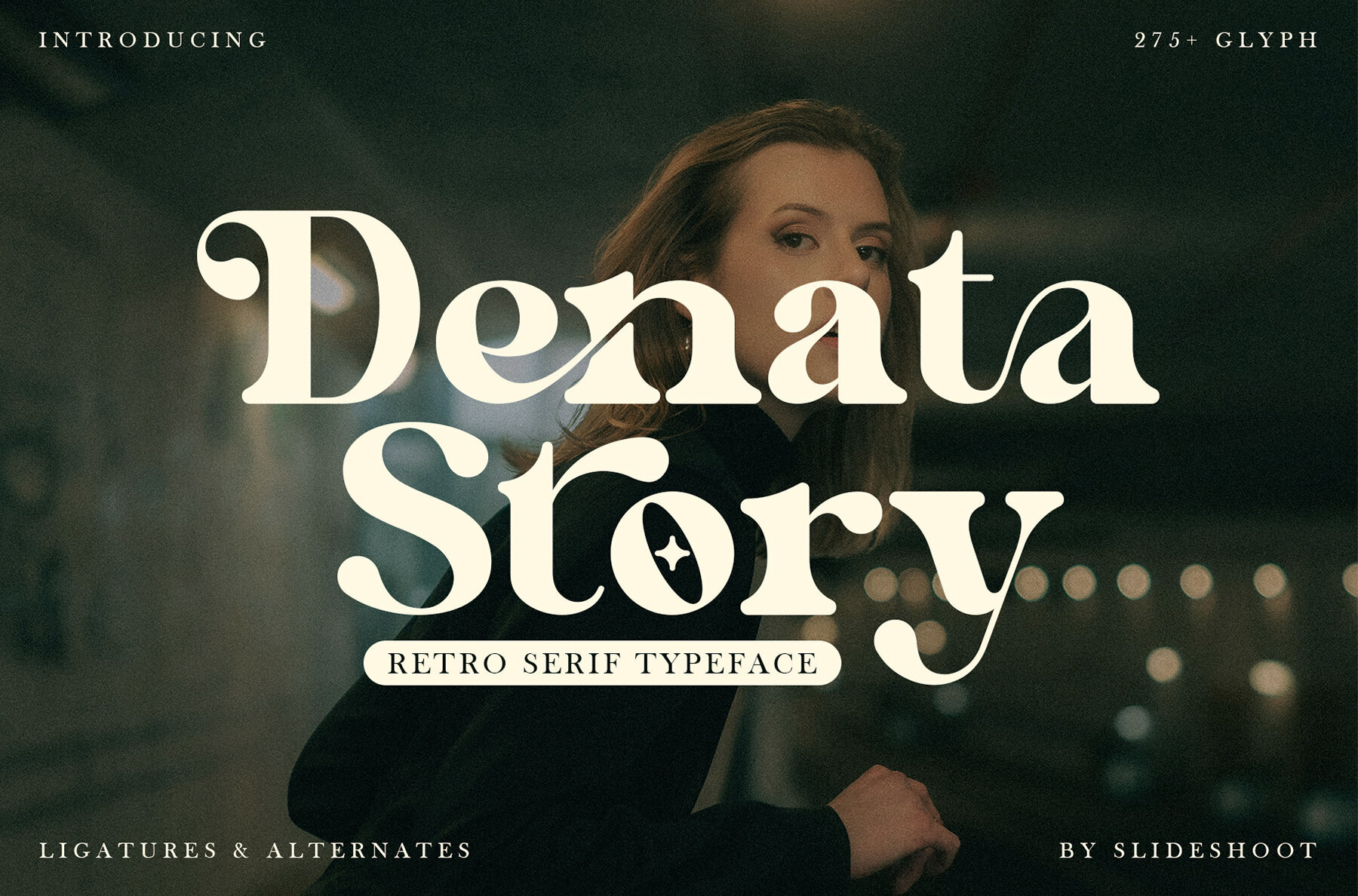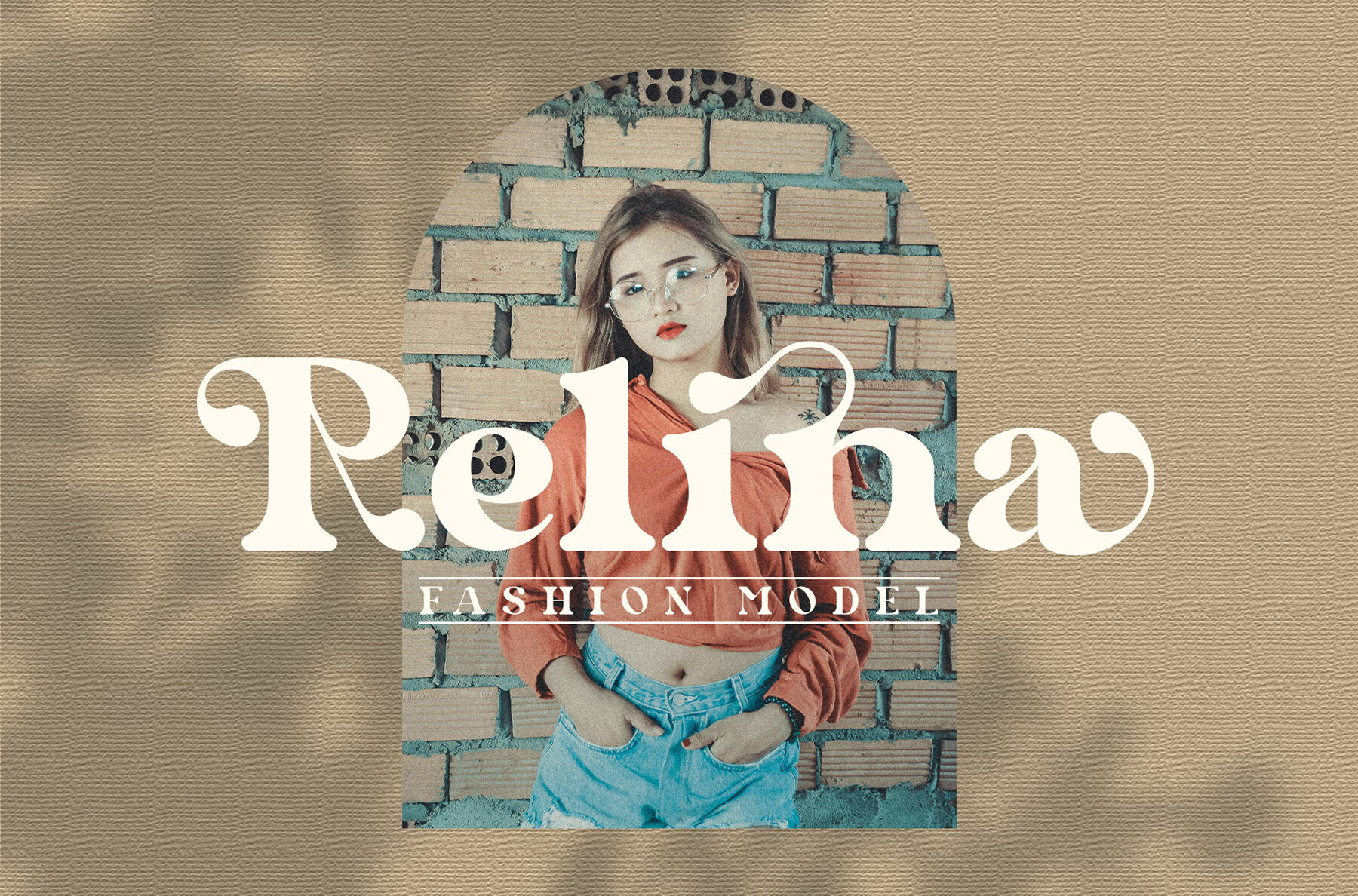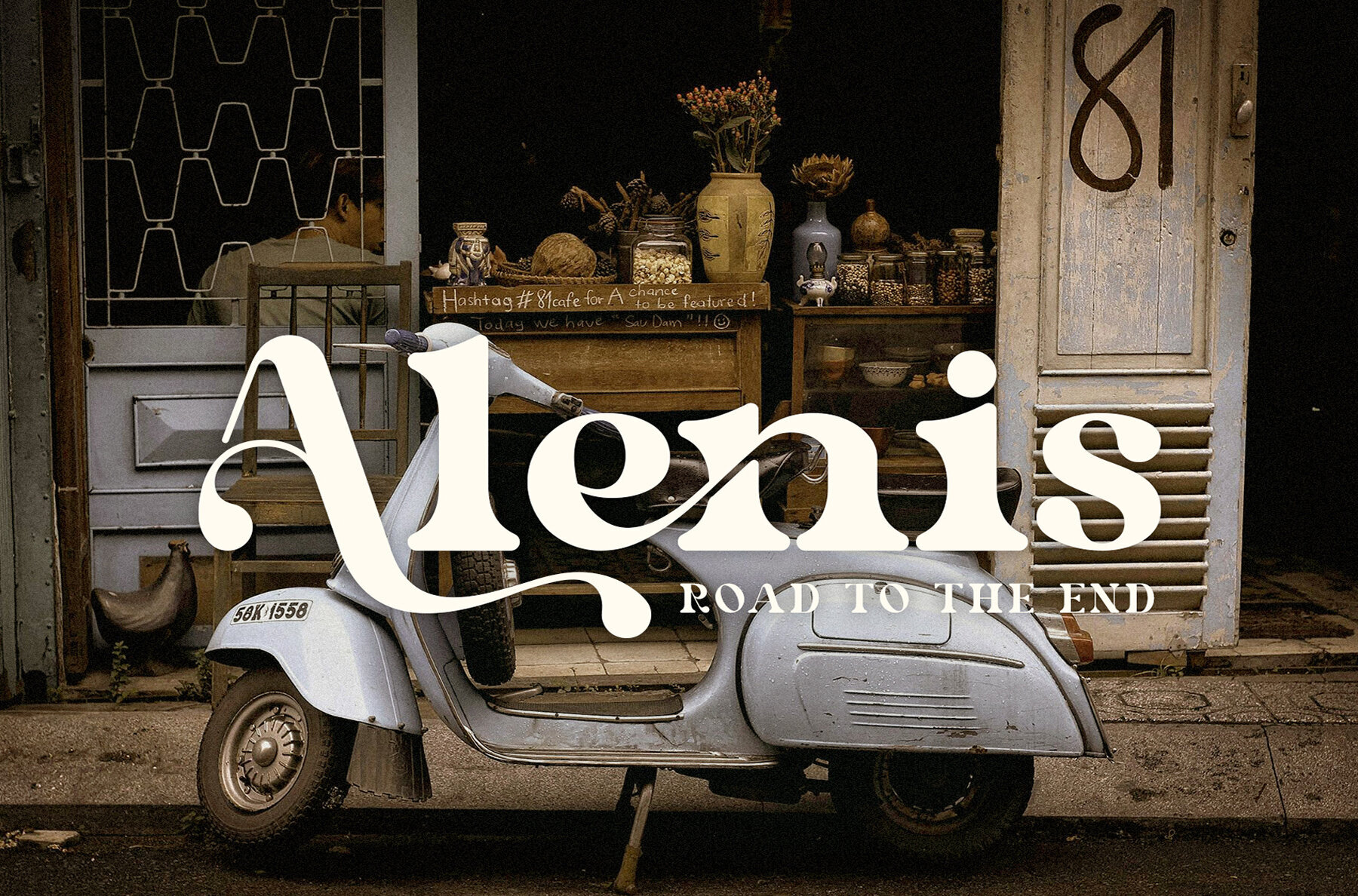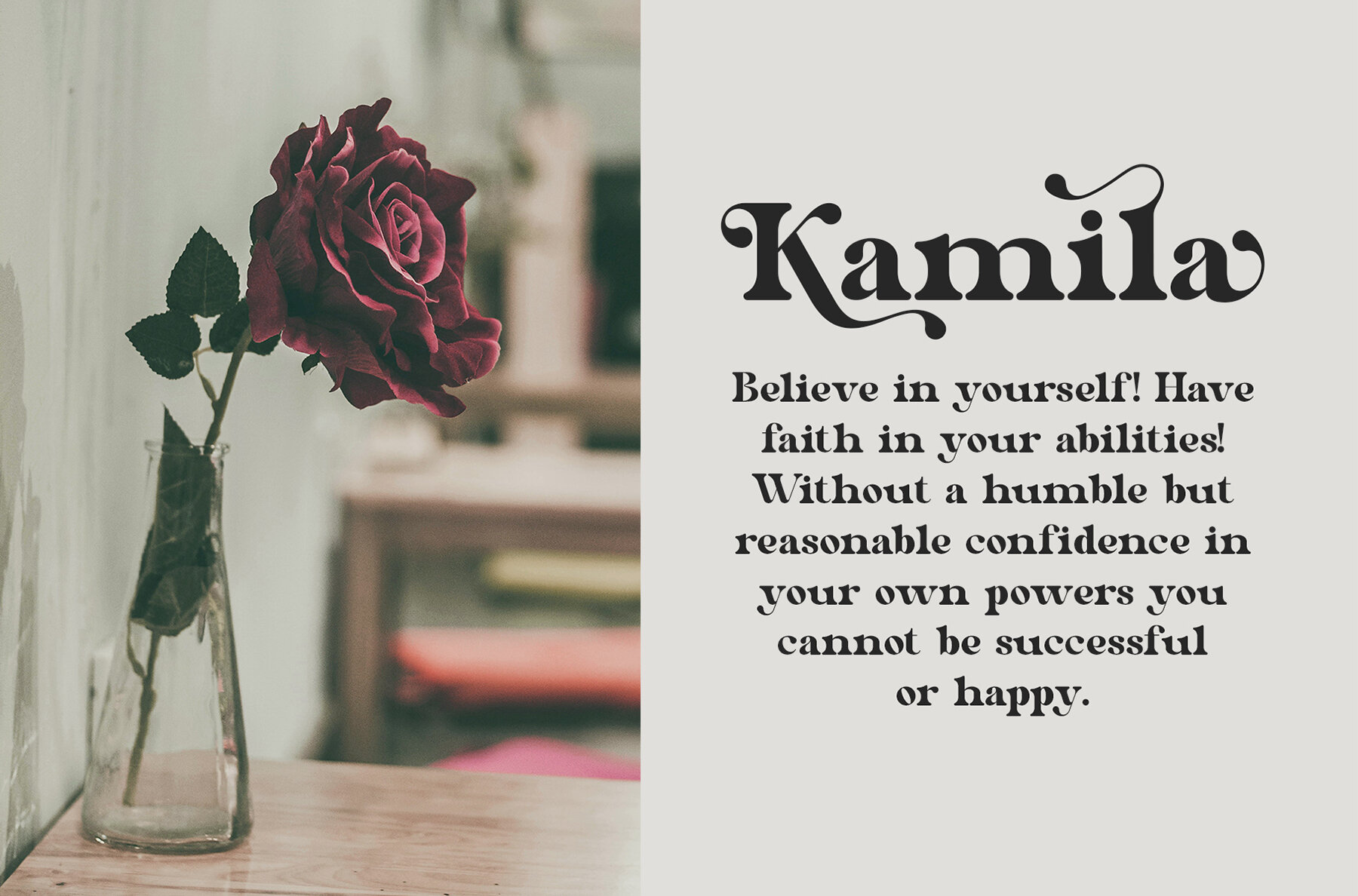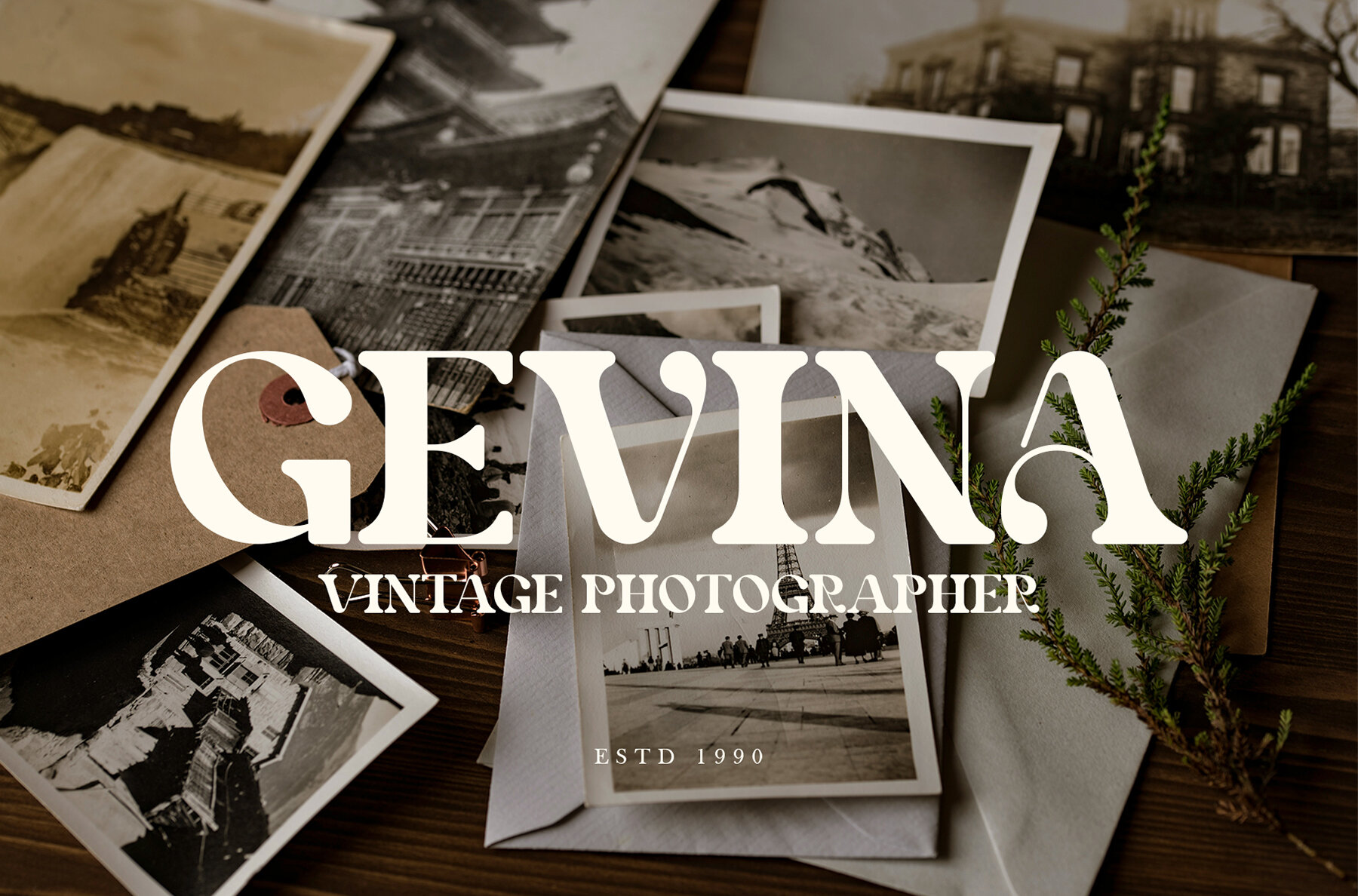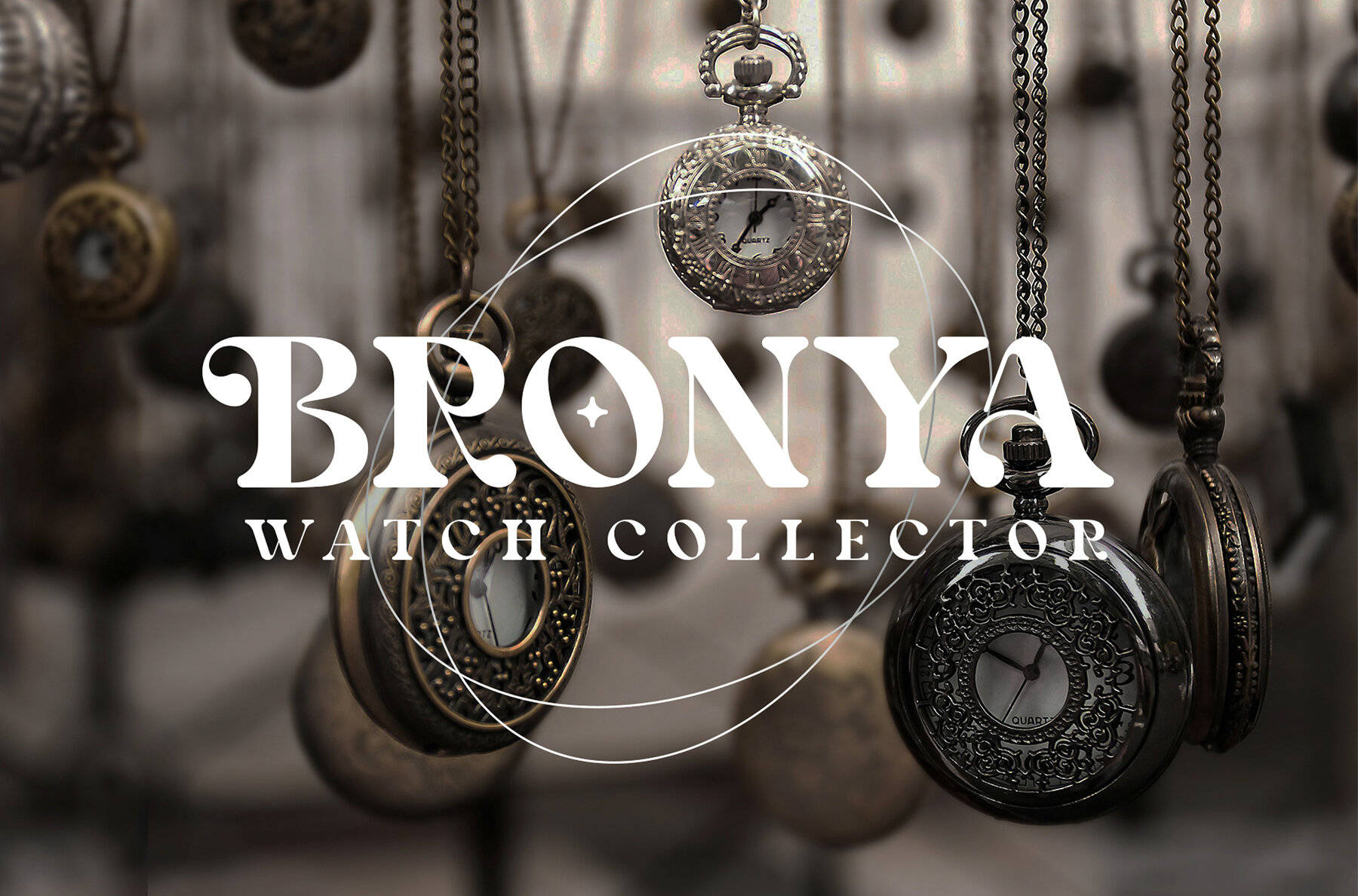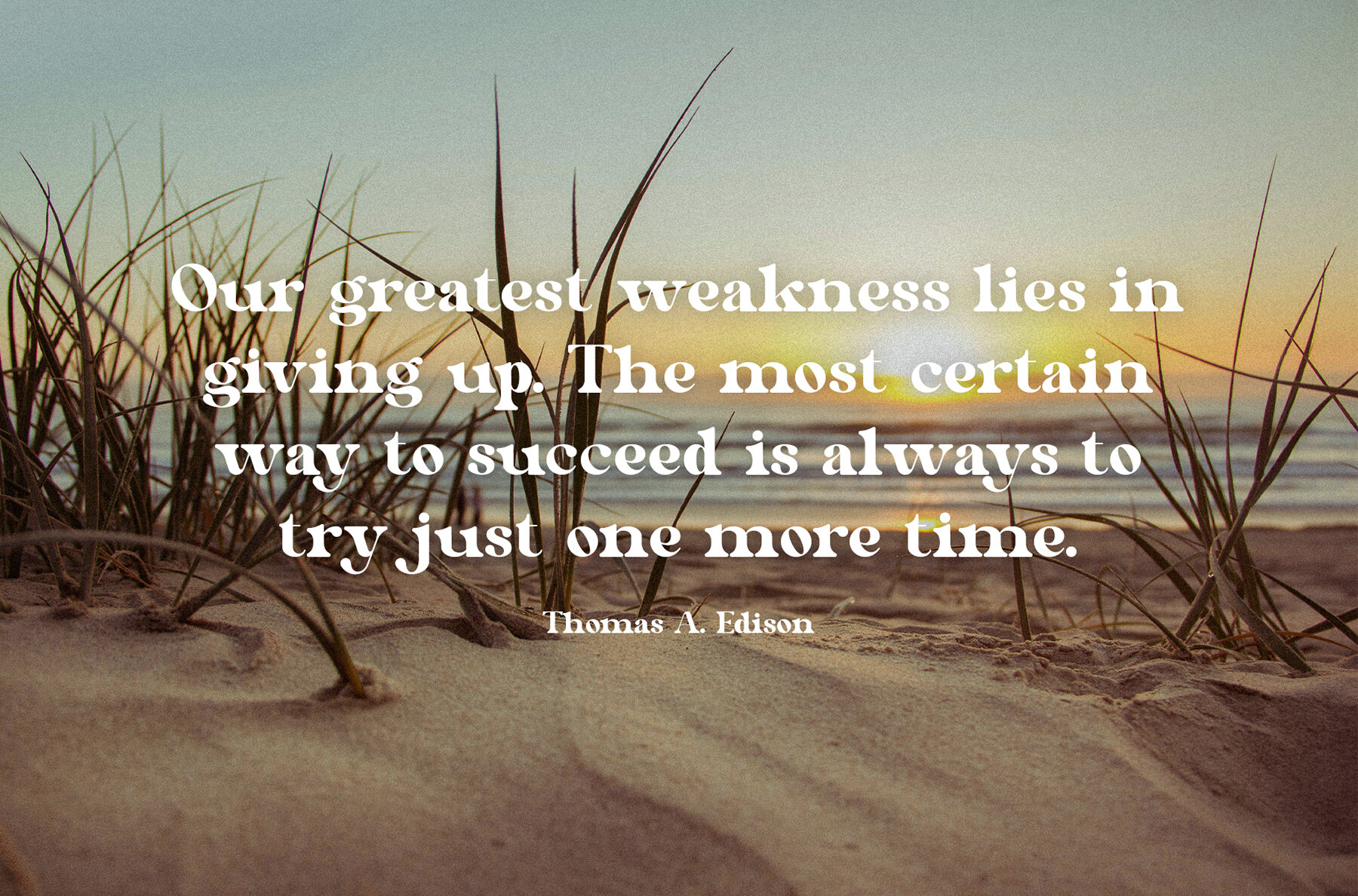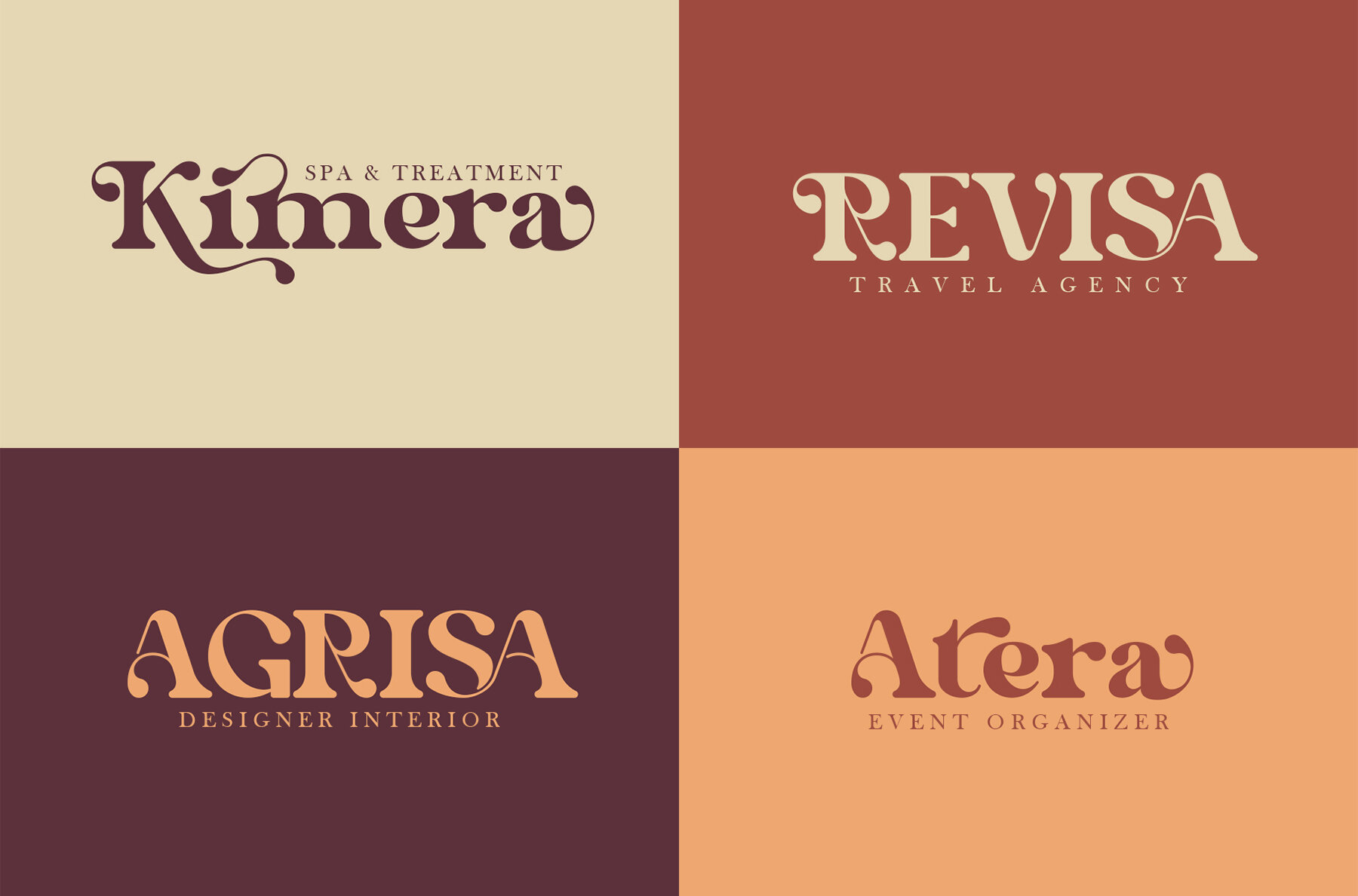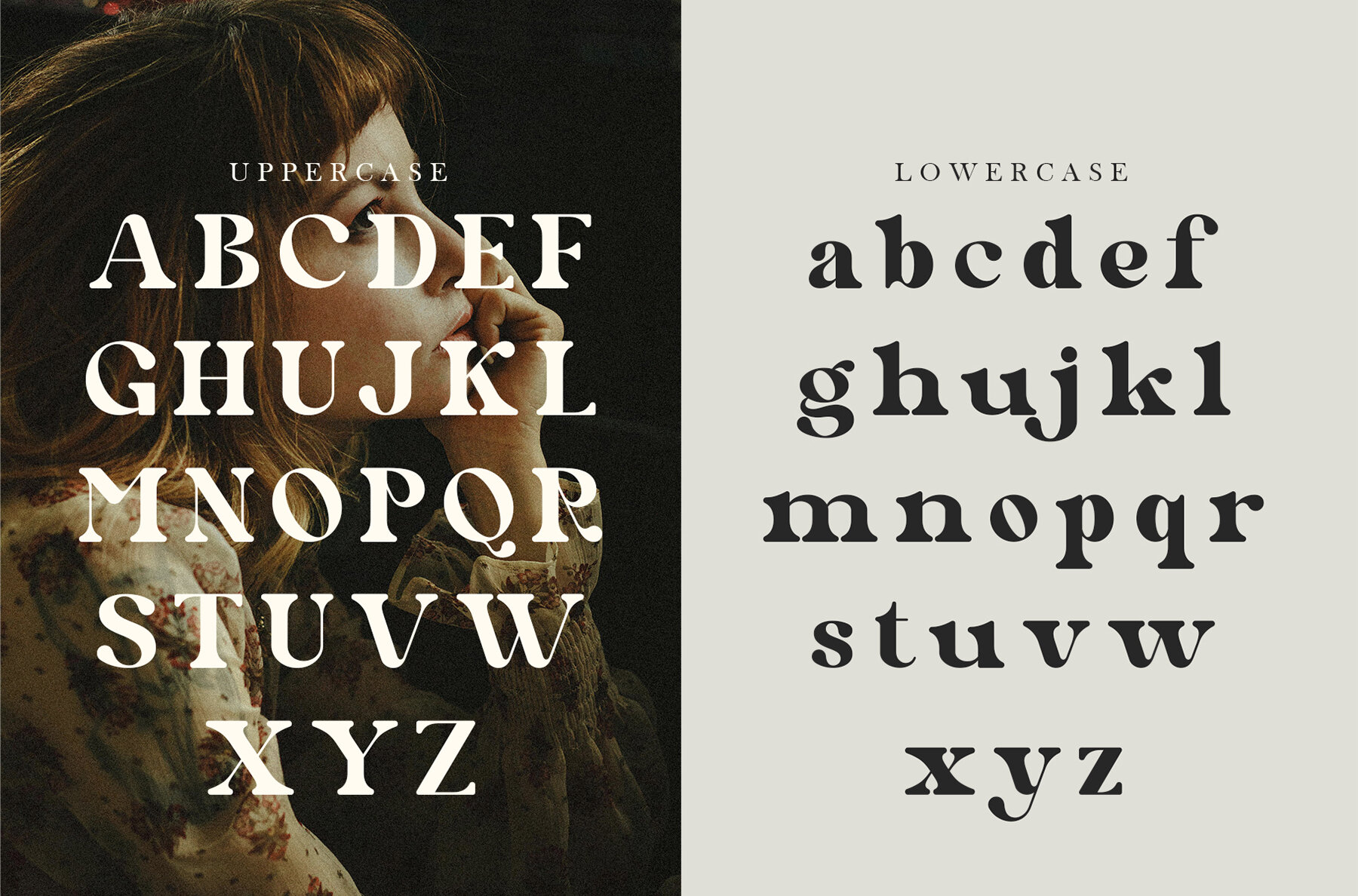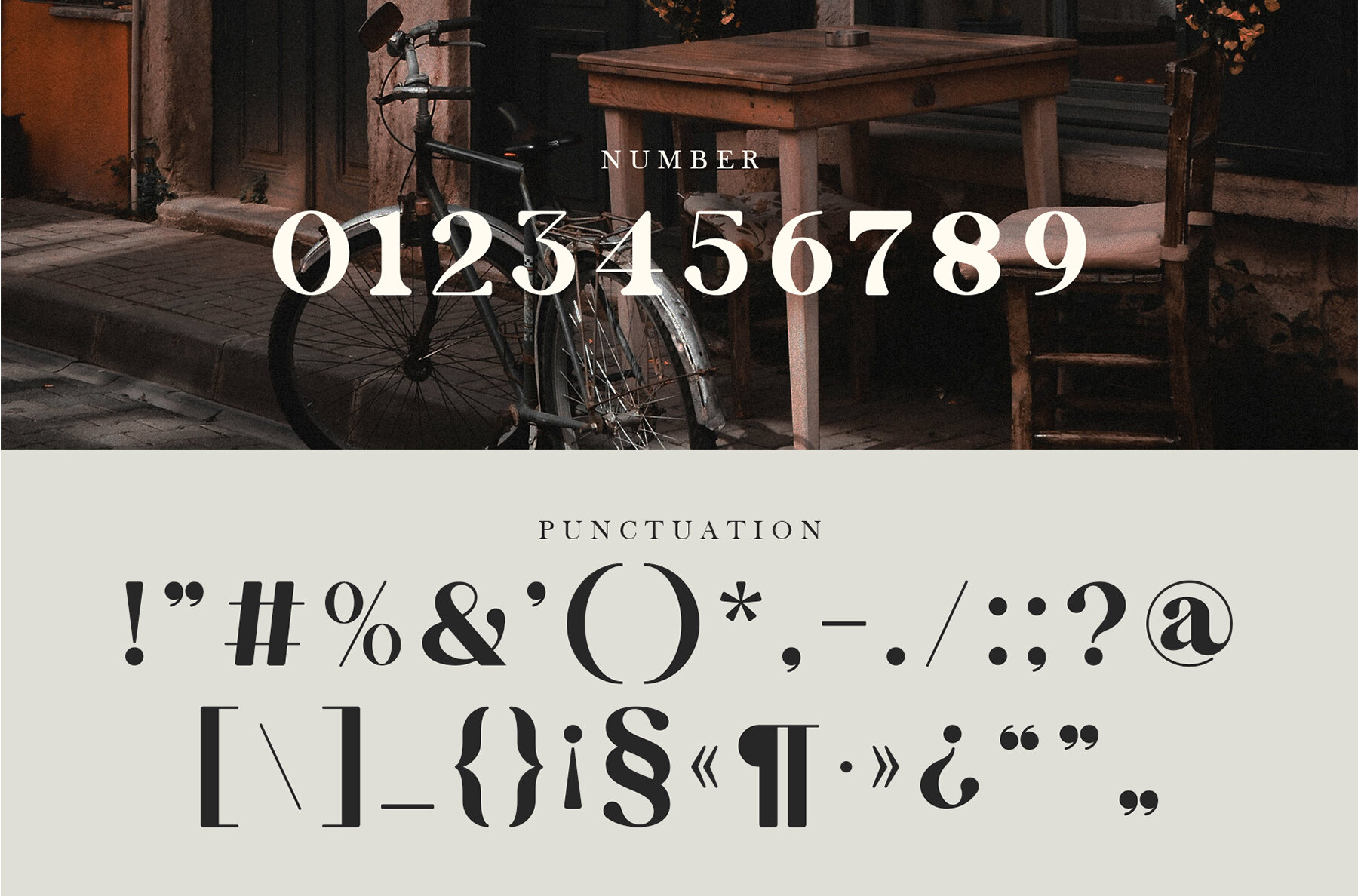
Denata Story Font
Denata Story Retro Serif is a refined and stylish serif font, blending smooth elegance with a retro touch. Its balanced character is a flawless match for invitation cards, company logos, movie titles, business cards, book titles, brand names, and a variety of other designs. The font's sophisticated alternations and ligatures add a unique flair to any project, making it a versatile choice for designers.